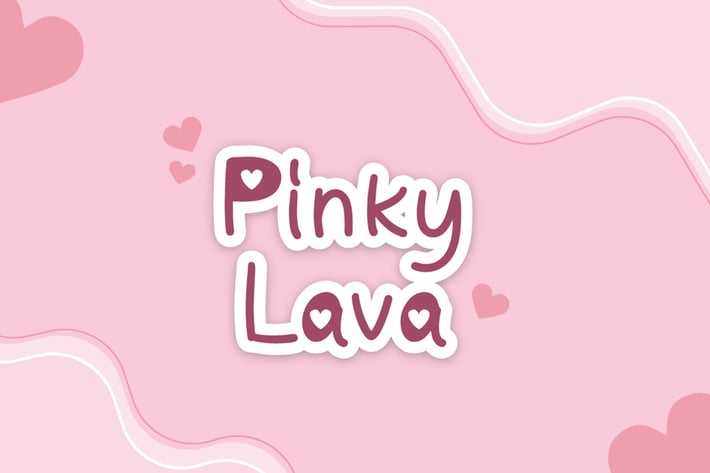
Pinky Lava - Handwritten Font
Introducing Pinky Lava font, a beautiful typeface that features love-shaped holes in some of its letters.
This font comes in both italic and display versions, giving you more flexibility in your design projects.
With its multilingual support, Pinky Lava is perfect for creating designs in various languages.
This font adds a touch of playfulness and romance to any project, making it ideal for creating natural handwritten logos and designs with love and Valentine's Day themes.
Whether you're designing a greeting card, wedding invitation, or love-themed poster, Pinky Lava is sure to impress with its unique love-shaped holes and its playful yet professional vibe